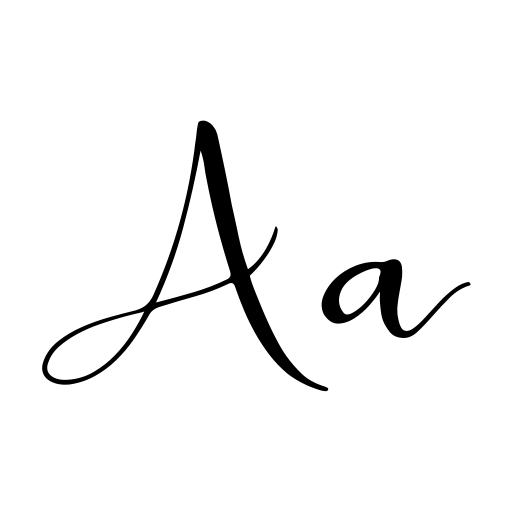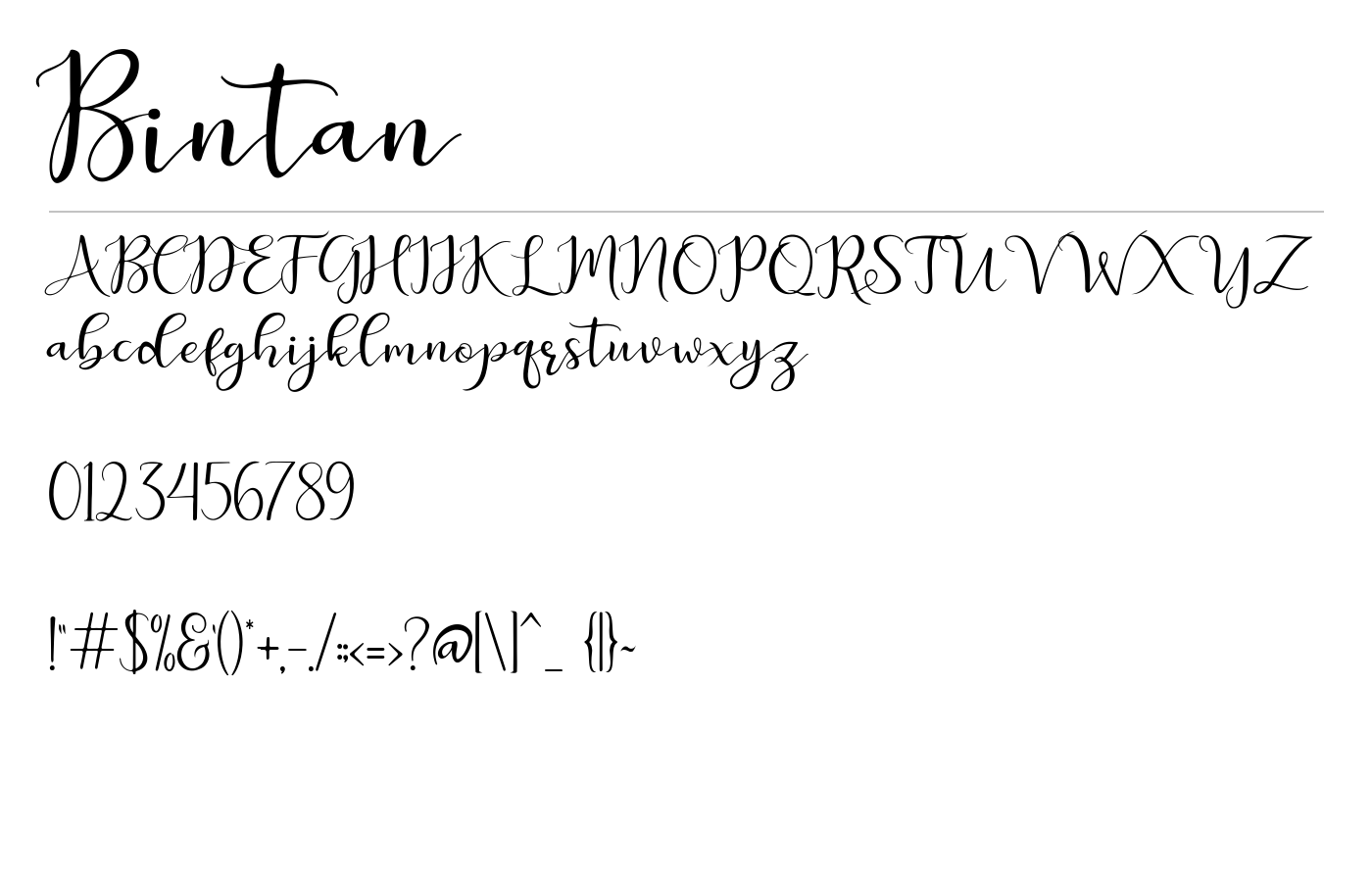
Bintan is an elegant script font with a delicate, handwritten feel, featuring slender strokes and graceful swirls that give it a refined and artistic touch. Its thin, flowing letterforms and charming details make it perfect for invitations, branding, and creative projects that aim to convey sophistication and a personal, stylish flair. This font works best in headlines, logos, and decorative uses where its decorative nature can shine.
Bintan Font